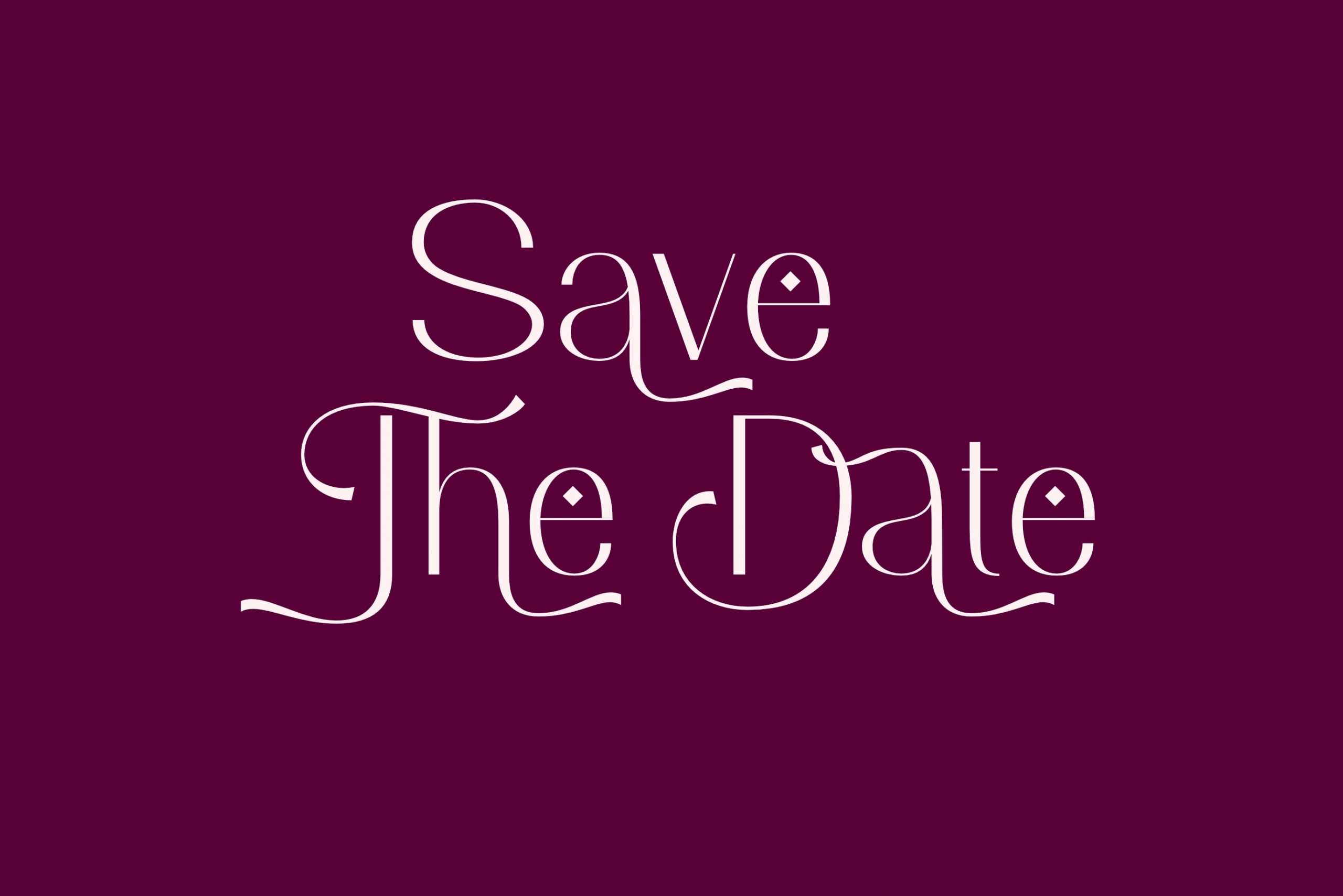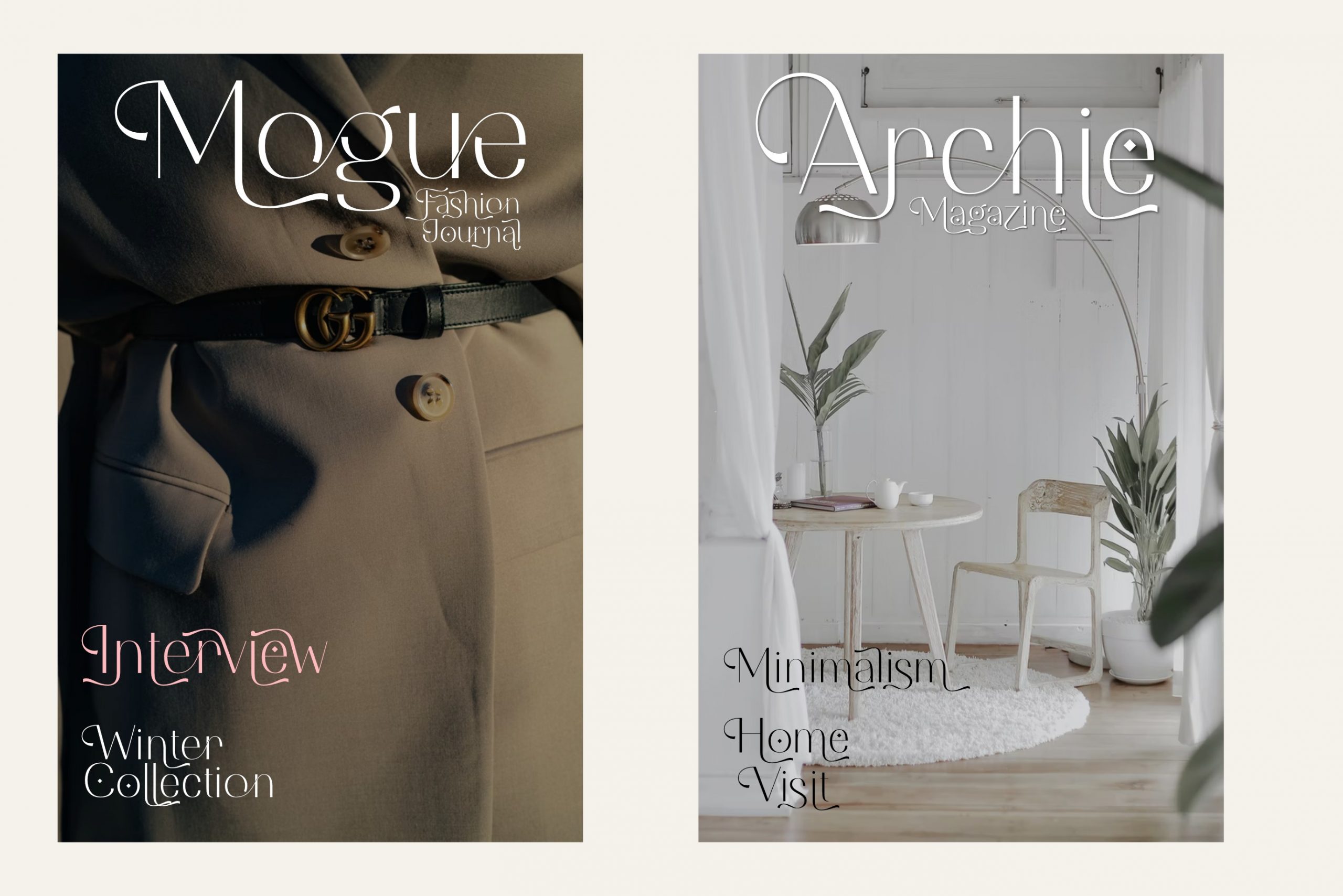
Fogato Sans Serif Font
It’s a modern sans serif font created by Toko Laris Djaja with beautiful alternate and ligature, special glyphs, ornament and multilingual support. It beautifully combines a vintage look with a modern touch, and it would make a wonderful impact on each of your projects! This style works well for branding projects, gorgeous wedding invitations, beautiful stationary art, eye-catching social media posts, logo and much more.